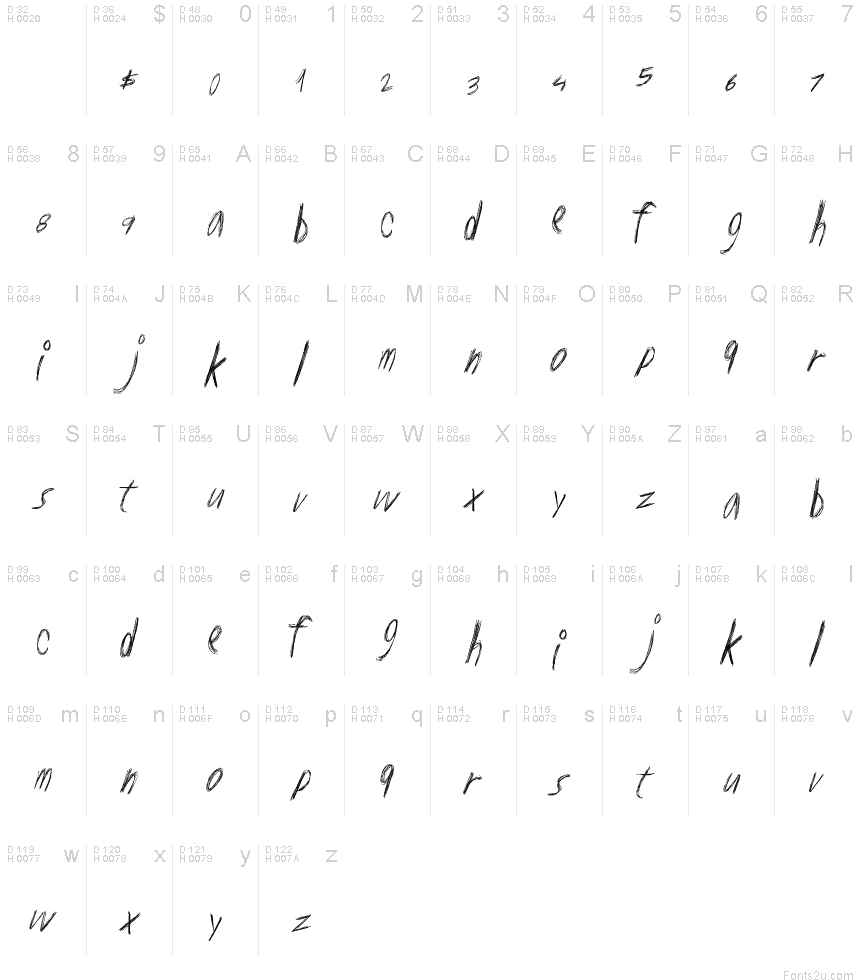
Lower Scratch from Xerographer Fonts is a free trash-style script font with the nervous speed of a hastily scrawled note. Its narrow, looping letters are repeatedly scratched over, producing wiry contours, uneven weight, and long strokes that kick beyond the main forms.
A punk concert poster is its most convincing setting, with album artwork, streetwear graphics, and horror event promotion offering related uses for the same raw mark-making. In branding, those restless doubled and tripled lines can turn a band name, skate label, or underground venue into a rough hand-drawn signature.